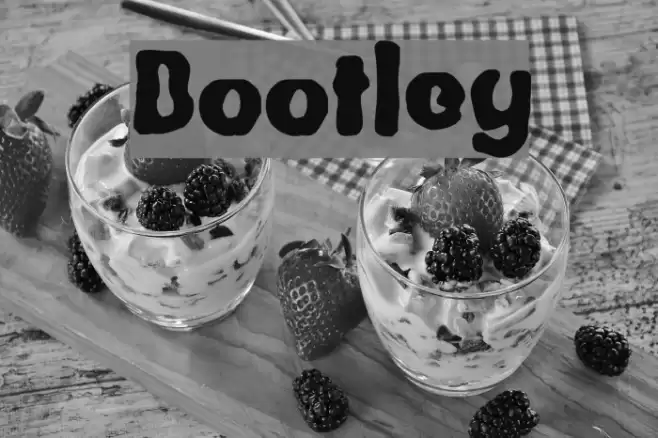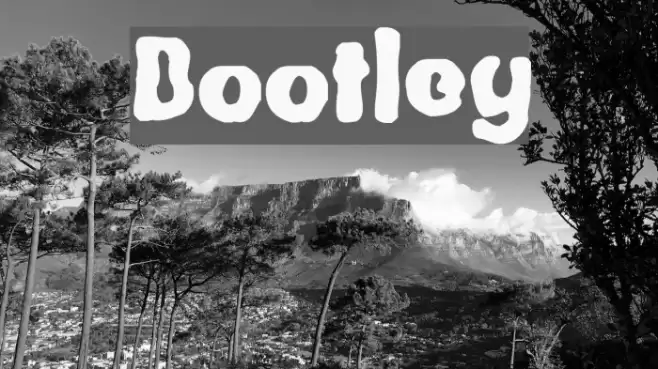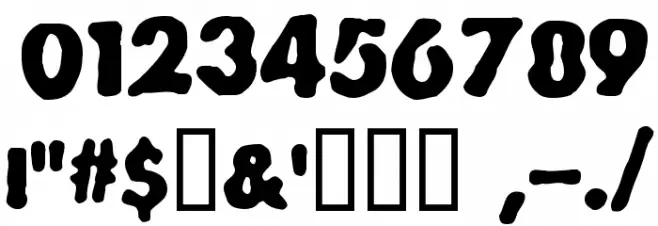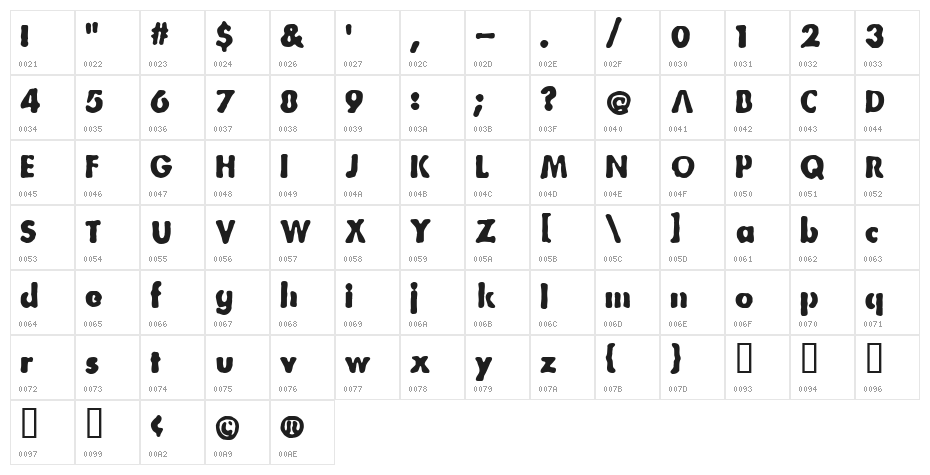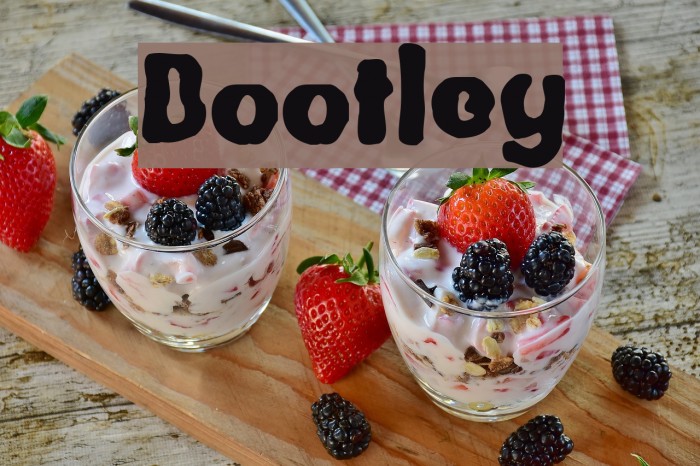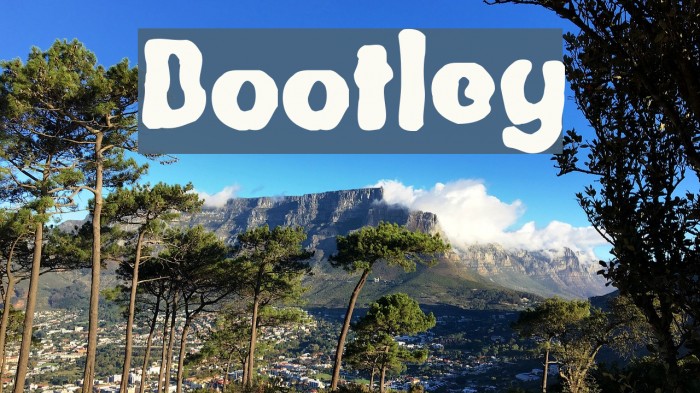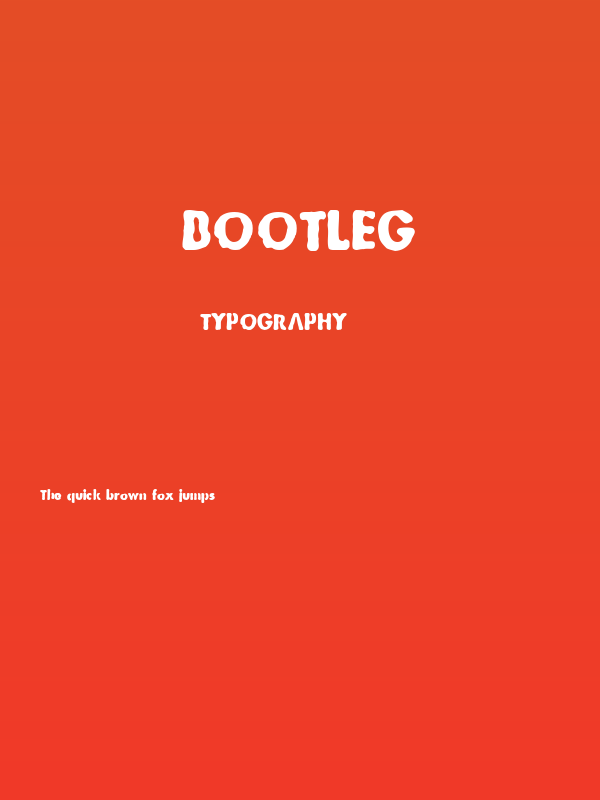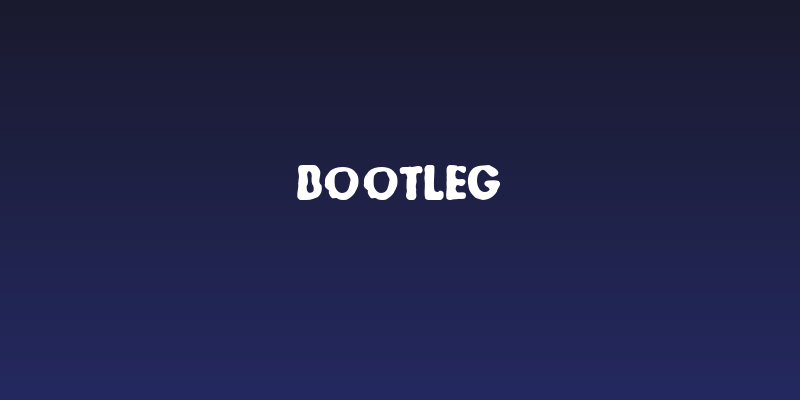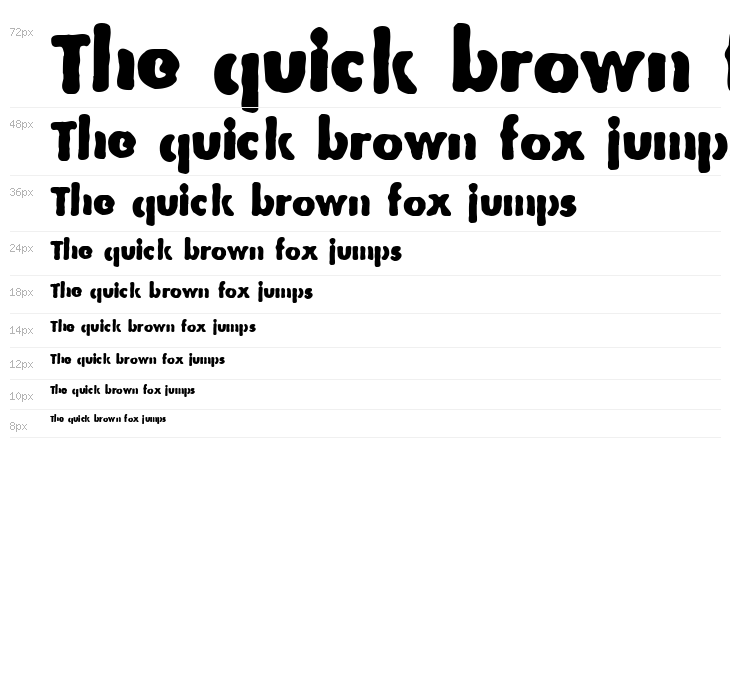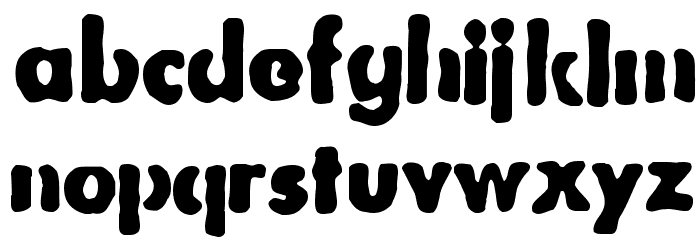
Bootleg Font
Bootleg Description
This font features a bold and playful design with thick, rounded strokes that give it a distinctive and eye-catching appearance. The characters are slightly irregular, adding a whimsical and handcrafted feel. The uppercase and lowercase letters maintain a consistent style, with the lowercase letters mirroring the playful curves of the uppercase. The numbers are equally bold and rounded, ensuring readability while maintaining the font's unique style. Special characters are designed to match the overall aesthetic, making this font suitable for creative and informal applications.
A bold, playful font with rounded, irregular strokes and a handcrafted feel from Futuristic fonts.
- Proposed Projects: Ideal for children's books, playful branding, posters, and creative projects that require a fun and informal touch.
- Overall Style: Playful, Whimsical